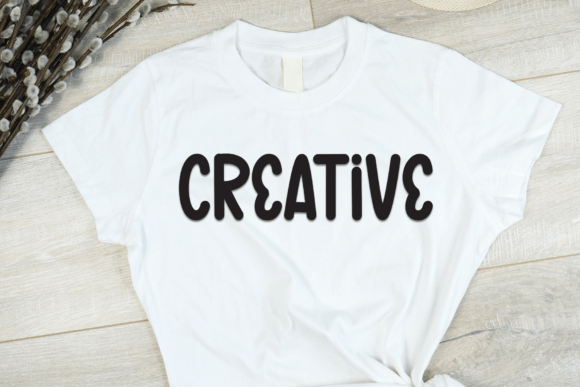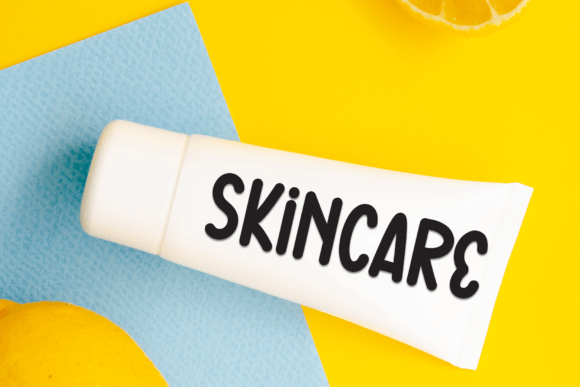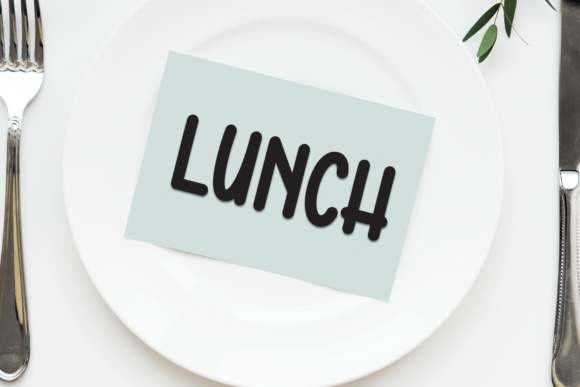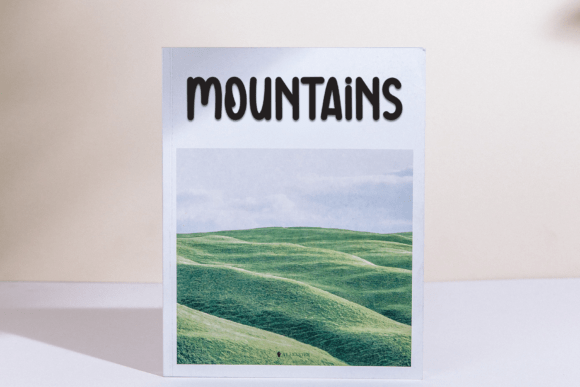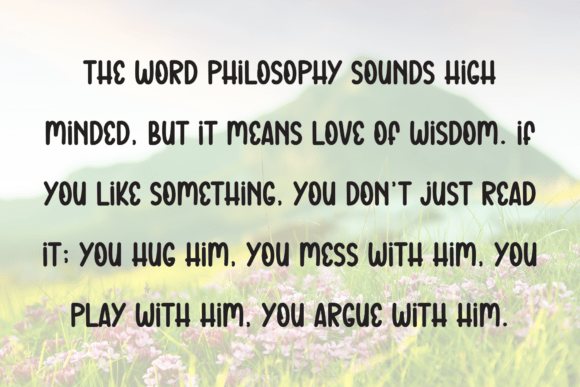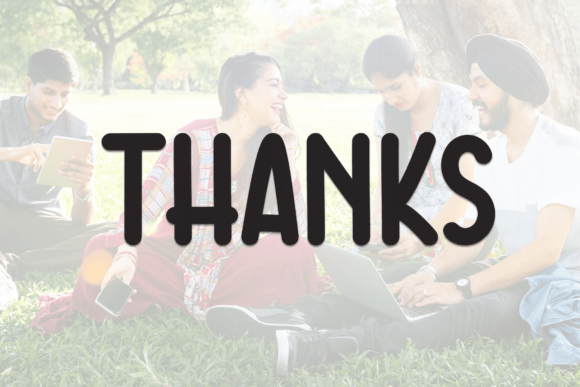
Introducing Hangout Font: The Ultimate Playful Display Font for Creative Projects
Are you looking for a font that can add a touch of casual fun and friendliness to your designs? Look no further than Hangout Font, a playful handmade display font that is perfect for a wide range of creative projects. With its bold, rounded letterforms and relaxed, youthful personality, Hangout Font is sure to make your designs stand out.
What Makes Hangout Font So Special?
Hangout Font is characterized by its smooth curves and consistent weight, making it both eye-catching and easy to read. The font’s modern handwritten aesthetic blends seamlessly with high-impact legibility, offering a fresh, energetic style that is perfect for designs that aim to connect in a cheerful, informal tone.
Whether you’re working on social media graphics, posters, merchandise, event invitations, branding, or children’s content, Hangout Font is the perfect choice. Its versatility and playfulness make it an ideal font for designers and crafters who want to add a personal touch to their work.
The Benefits of Using Hangout Font
So, what are the benefits of using Hangout Font in your designs? Here are just a few:
- Playful and Fun: Hangout Font is the perfect way to add a touch of whimsy and fun to your designs. Its bold, rounded letterforms are sure to bring a smile to your audience’s faces.
- Easily Readable: Despite its playful nature, Hangout Font is incredibly easy to read. Its smooth curves and consistent weight make it perfect for designs that need to be both eye-catching and legible.
- Versatile: Hangout Font is perfect for a wide range of creative projects, from social media graphics to posters, merchandise, and more.
- Modern and Fresh: Hangout Font’s modern handwritten aesthetic makes it perfect for designers who want to add a fresh, energetic style to their work.
How to Use Hangout Font in Your Designs
Hangout Font is incredibly easy to use in your designs. Here are a few tips to get you started:
- Pair it with Other Fonts: Hangout Font pairs perfectly with other fonts, especially sans-serif fonts. Try pairing it with a clean, modern font for a bold and eye-catching look.
- Use it for Headings: Hangout Font is perfect for headings and titles. Its bold, rounded letterforms make it easy to read and add a touch of personality to your designs.
- Add Color and Texture: Hangout Font looks amazing with color and texture. Try adding a bright color or texture to your design to make it stand out.
Who is Hangout Font For?
Hangout Font is perfect for designers and crafters who want to add a personal touch to their work. Here are a few examples of who might benefit from using Hangout Font:
- Graphic Designers: Hangout Font is perfect for graphic designers who want to add a playful touch to their designs.
- Crafters: Hangout Font is perfect for crafters who want to add a personal touch to their handmade projects.
- Social Media Managers: Hangout Font is perfect for social media managers who want to add a touch of personality to their social media graphics.
Hangout Font is a playful handmade display font that is perfect for a wide range of creative projects. With its bold, rounded letterforms and relaxed, youthful personality, Hangout Font is sure to make your designs stand out. Its smooth curves and consistent weight make it both eye-catching and easy to read, making it perfect for designs that aim to connect in a cheerful, informal tone.
Whether you’re a designer or crafter, Hangout Font is a great addition to your font library. So why not give it a try and see how it can add a touch of casual fun and friendliness to your designs?